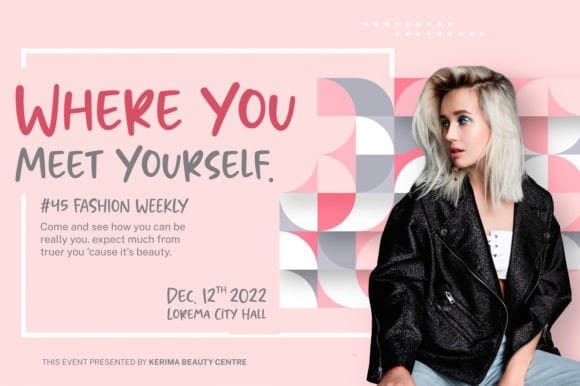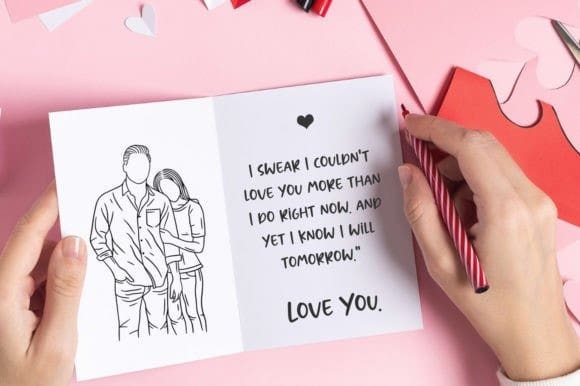
Deeptalk Handwritten Font
Deeptalk Handwritten Font is a sophisticatedly simple handwritten font. Crafted with tender touch, each letter emerges with the unique authenticity and delicate precision that evokes the freestyle charm of chalkboard scribing. Ideal for encapsulating motivating quotes or constructing remarkable teaching materials, Deeptalk stands as a testament to personable and realism-infused design. Feel the intimacy in every curve and stanza, gracing your designs with the warmth of handwritten artistry.